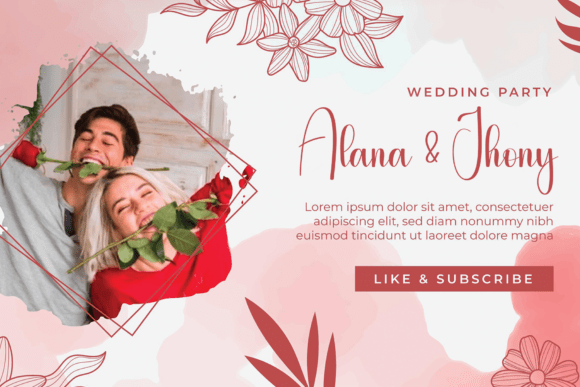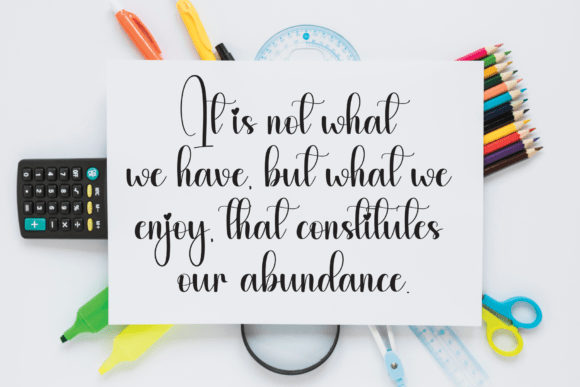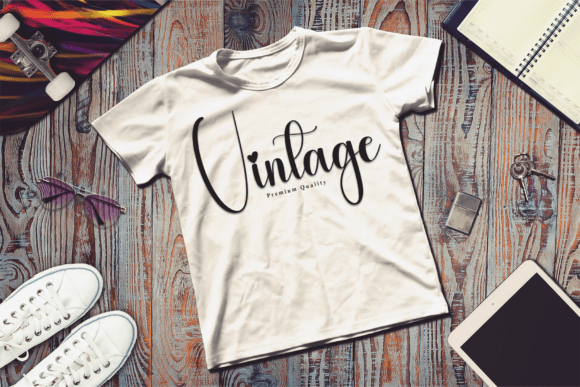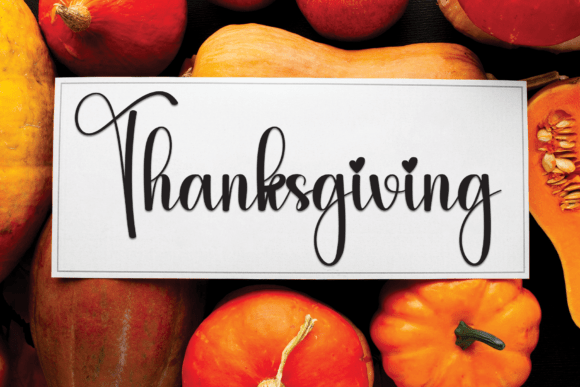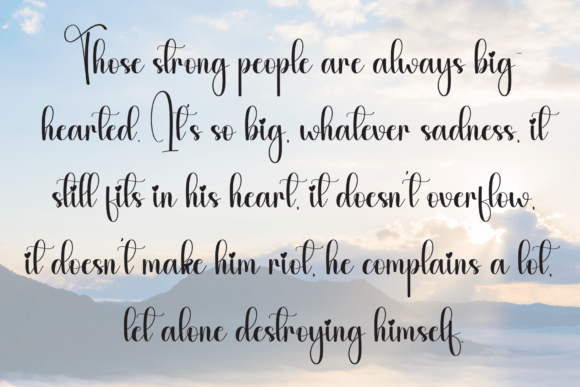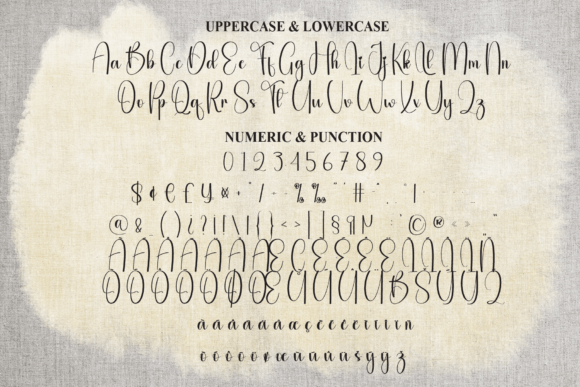
The Perfect Brushstroke: Discovering the Beauty of Canvas Font
Have you ever been working on a design project, and suddenly, a spark of creativity strikes? The idea of a beautiful, handwritten font flashes before your eyes, and you can’t help but envision it on a stunning invitation or a luxurious brand logo. For designers like you, the search for the perfect font is an ongoing quest. Enter the Canvas Font, a stylish handwritten script that embodies elegance and charm with its fluid, graceful strokes.
Whether you’re crafting bespoke stationery or designing a bespoke brand identity, Canvas Font is the perfect choice. Its smooth curves and natural flow create a timeless, refined look that adds a personal and sophisticated touch to any design. With Canvas Font, you can elevate your designs to new heights and leave a lasting impression on your audience.
Key Features of Canvas Font
- Unique Character Set: Canvas Font boasts a comprehensive character set, including Latin, Cyrillic, Greek, and many other languages, making it an ideal choice for multilingual designs.
- Customizable: With Canvas Font, users can adjust font styles, including bold, italic, and condensed options, to suit their specific design needs.
- High-Quality Design: Canvas Font is designed with precision and attention to detail, resulting in a sophisticated and polished look that elevates any design project.
Designer Review: Canvas Font
As a designer, I was excited to dive into Canvas Font and see what it had to offer. Overall, I found it to be a decent font, but with some notable limitations. ✨ Here are some things that work well:
- Canvas Font has a modern and clean design, making it suitable for a variety of projects.
- The font is highly legible, even at small sizes, which is a big plus.
- It’s also a versatile font, working well for both body text and headings.
- The font may not be the best choice for projects that require a more traditional or classic look.
- It can feel a bit generic, which may make it harder to stand out in crowded designs.
- The font family is relatively small, which may limit its versatility for certain projects.
Overall, I’d say Canvas Font is a solid choice for designers who want a clean and modern font. However, it may not be the best fit for every project. With a bit more development and expansion of the font family, I think Canvas Font could be a real contender in the design world.
Canvas Font is ideal for creating custom typography for branding, logos, and graphics.